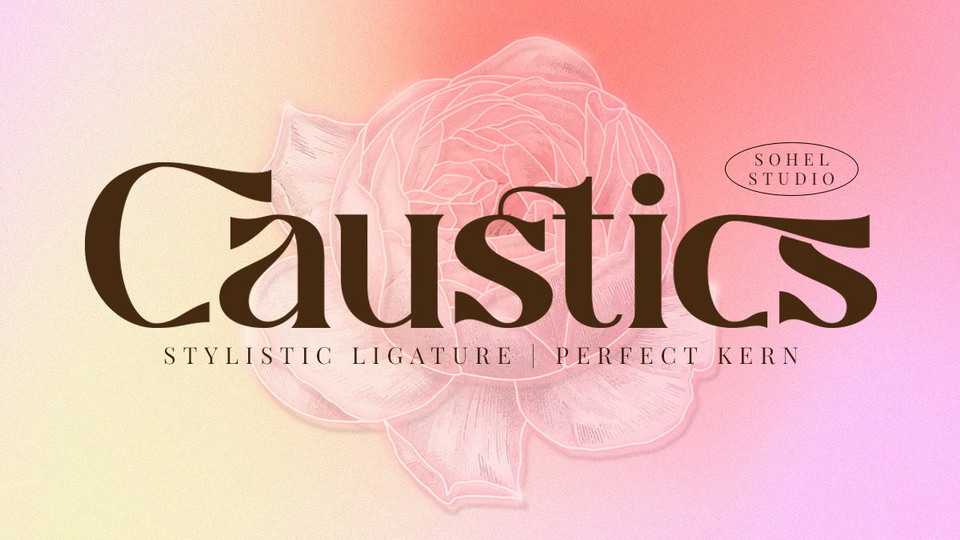
Download Caustics font, a modern and chic display typeface. Caustics font is perfect for an elegant and luxury logo, book or movie title design, fashion brand, magazine, clothes, lettering, quotes, social media posts and so much more.
Designer: Sohel Studio